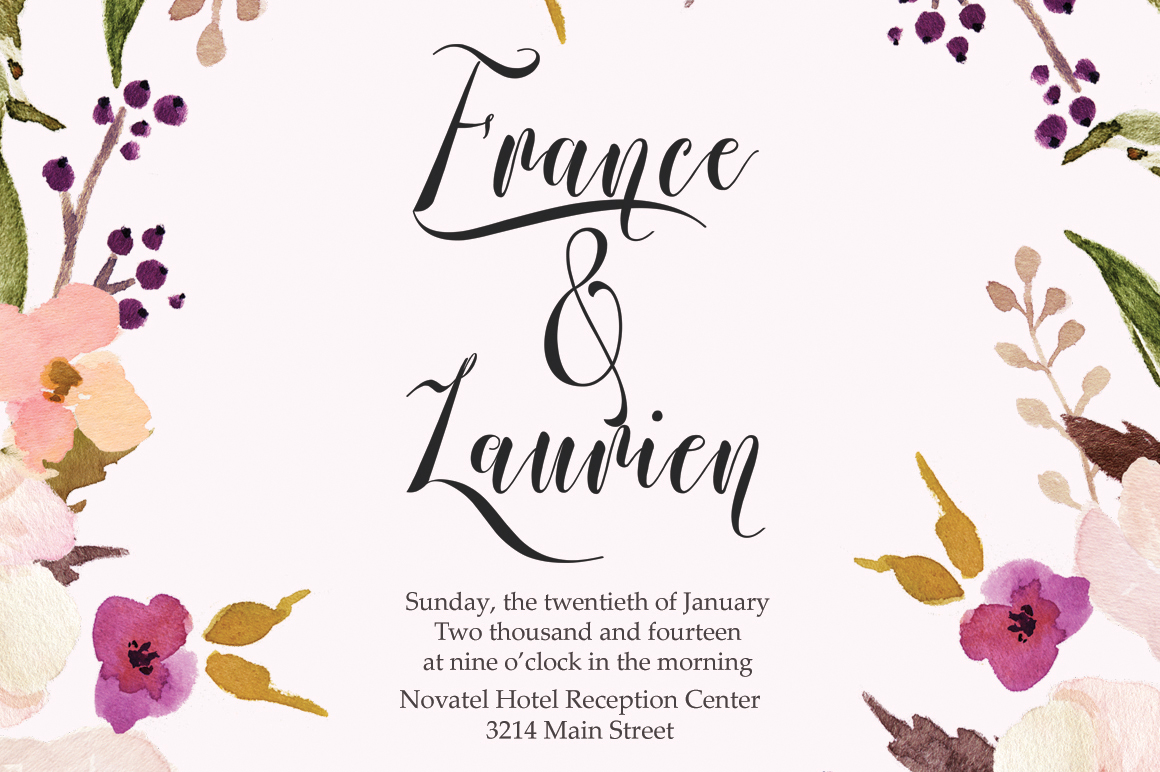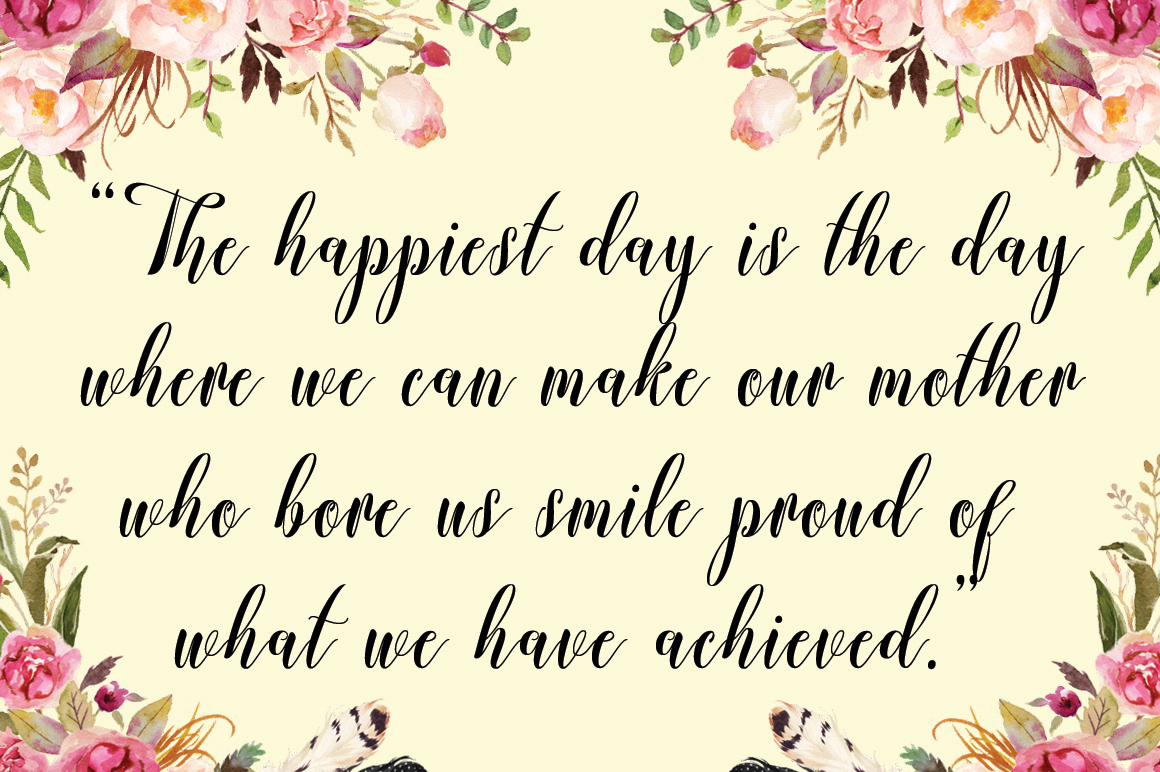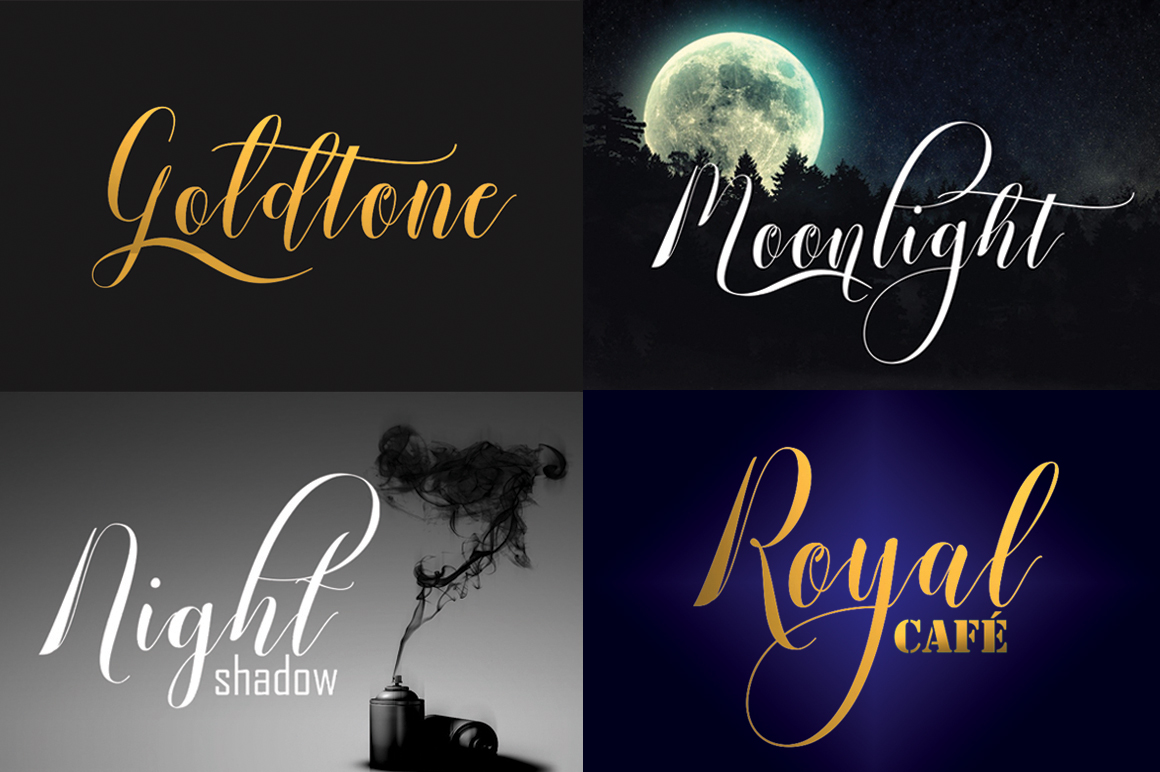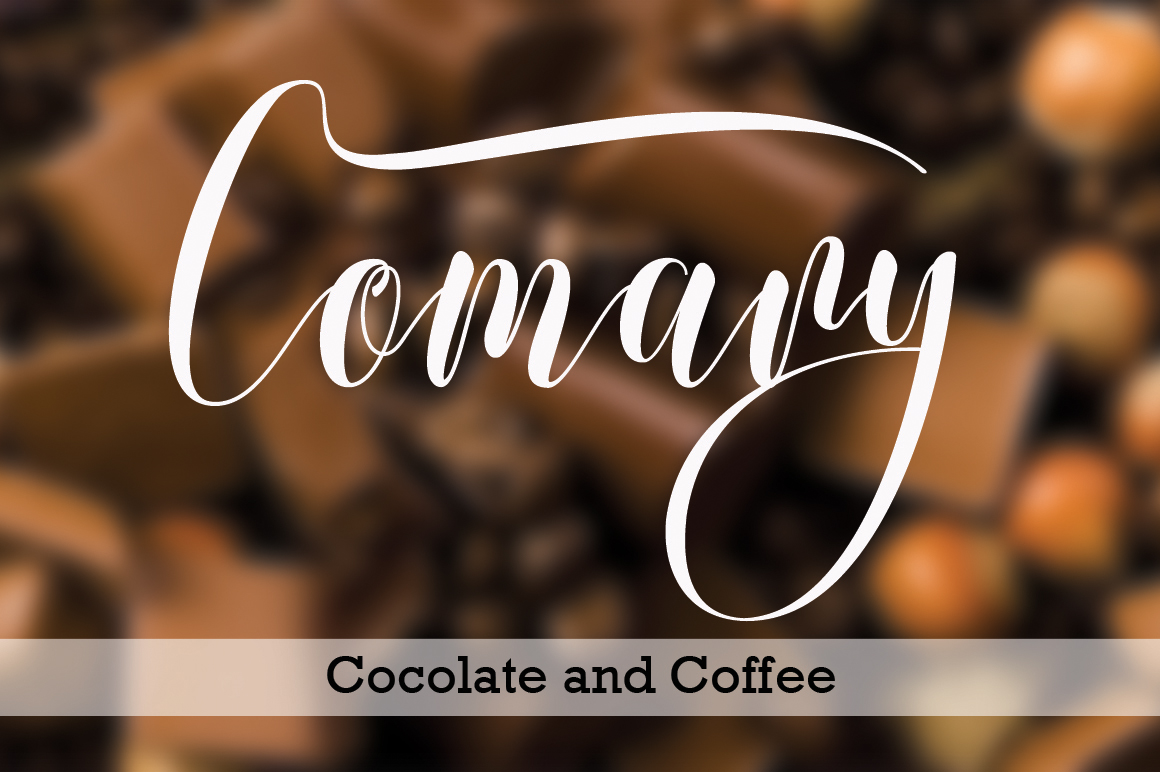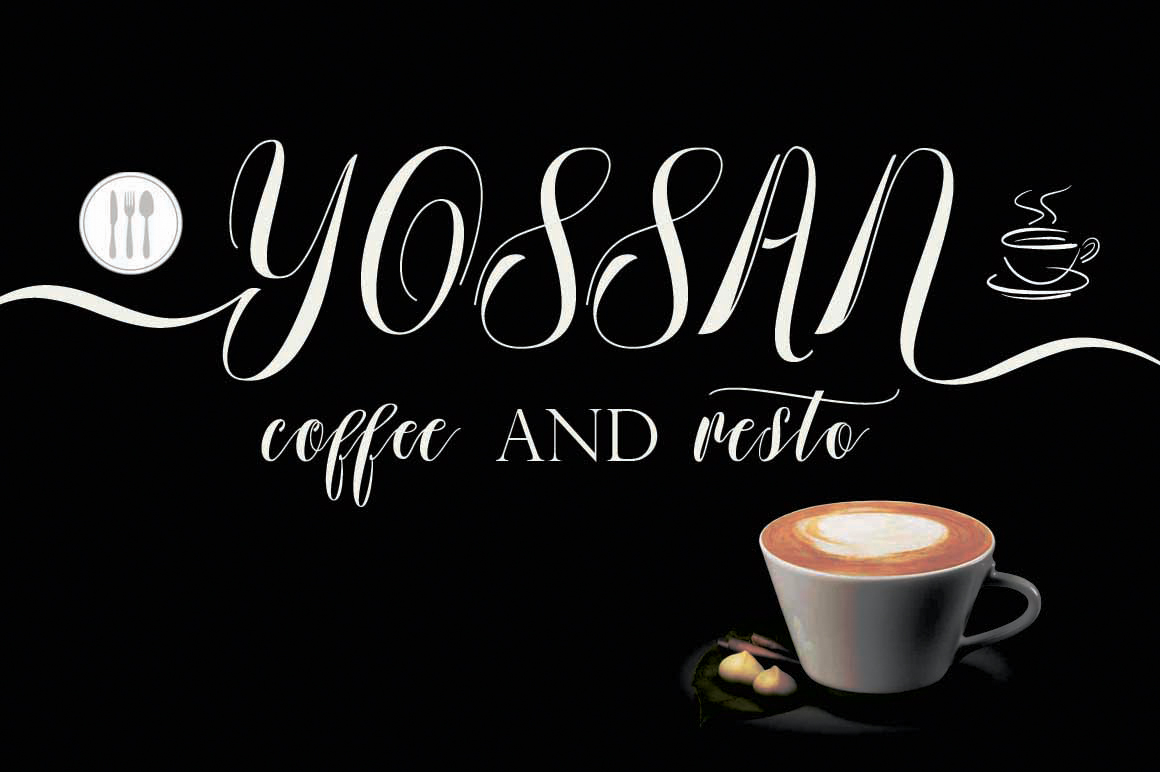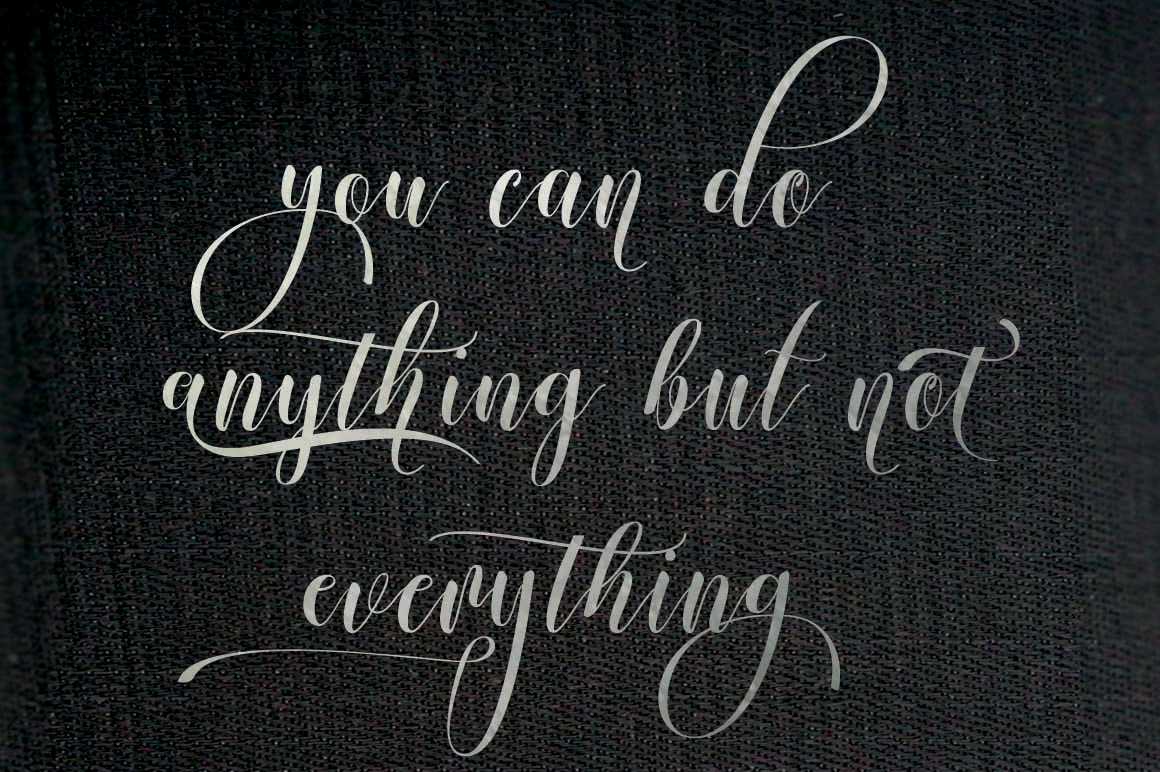
Introduction to Resolusi Script Font
You know that moment when you’re working on a creative project and everything comes together – the colors, the typography, the overall aesthetic? It’s like magic. But, let’s be real, sometimes that perfect font can be the missing piece that takes your design from good to great. That’s where the Resolusi Script Font comes in – a modern script with a sweet calligraphy-style, decorative characters, and a dancing baseline that will elevate your design game.
As a valuable resource for designers, the Resolusi Script Font offers a high-quality, free download that’s perfect for adding a touch of elegance to your design. Whether you’re working on a logo, a brochure, or a website, this font is sure to impress. Plus, with a transparent background, you can easily layer it over any design element to create a cohesive look.
Key Features of Resolusi Script Font
- High-quality script font suitable for creative projects, providing a unique and elegant touch to any design resource.
- Available in a transparent background option, allowing for seamless integration into various design elements.
- Includes a large character set, supporting multiple languages and making it a versatile design resource.
- Perfect for wedding invitations, greeting cards, and other creative projects where a touch of elegance is required.
Honest Review: Resolusi Script Font
As a designer, I’m always on the lookout for high-quality design resources to elevate my creative projects. The Resolusi Script Font is one such resource that caught my attention, and I’m excited to share my honest review with you.
What works well: ✨ The font’s elegant and flowing script design makes it perfect for adding a touch of sophistication to any project. Its versatility in pairing with other fonts and its use in various design elements such as logos, invitations, and quotes make it a valuable addition to any design toolkit.
However, I do have a few limitations to note: ⚠️ The font’s file size is relatively large, which may be a concern for designers working on projects with tight file size constraints. Additionally, the font’s script design may not be suitable for all types of projects, particularly those requiring a more straightforward or sans-serif font.
Overall, I’m impressed with the Resolusi Script Font’s high-quality design and versatility. While it may have some limitations, it’s an excellent choice for designers looking to add a touch of elegance to their creative projects.
Resolusi Script Font works well with a transparent background, making it perfect for creating overlays and graphics. Experiment with different font sizes and colors to achieve a unique look. You can also use this font in combination with other design elements to create a cohesive and visually appealing design.
Resolusi Script Font is ideal for various creative projects, including wedding invitations, branding materials, and social media graphics. Its high-quality design and elegant style make it perfect for adding a touch of sophistication to your designs.